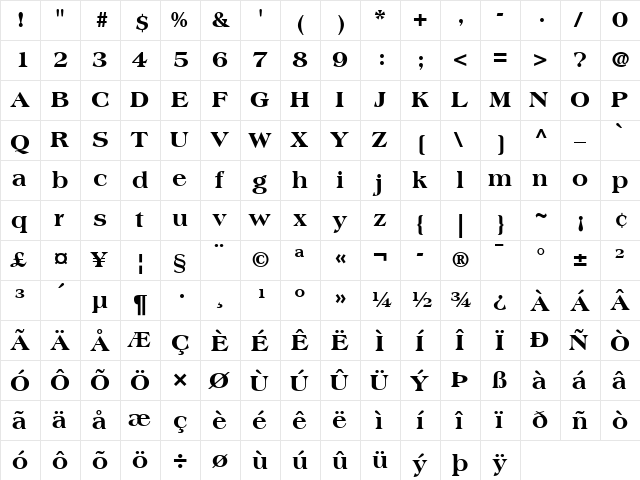
Americana LT ExtraBold Regular
Design Context for Americana LT ExtraBold Typeface
Americana LT ExtraBold is a composed and adaptable typeface that performs quietly and consistently across a wide range of design contexts. The heavy weight commands attention and anchors typographic hierarchies.